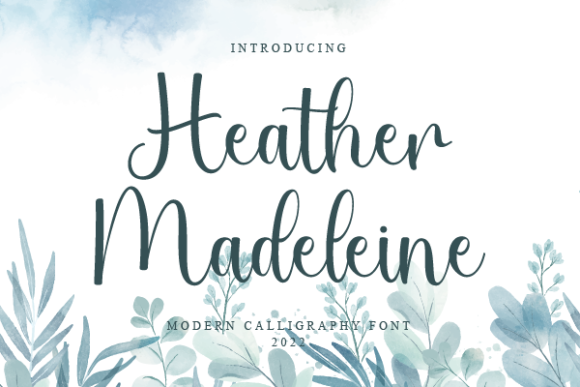
Step into a world of elegance and sophistication with Heather Madeleine, a script font that exudes charm and grace. Fiqiart, the creative mind behind this masterpiece, has meticulously crafted each letterform to deliver a stunning visual experience. Prepare to be captivated by its intricate details and delicate flourishes that elevate any design to new heights of beauty.
Imagine your T-shirt designs adorned with Heather Madeleine's enchanting characters, gracefully flowing across the fabric, enchanting the eyes of all who behold them. Let your creativity soar as you unleash the boundless possibilities of this font, transforming ordinary garments into works of art. With its remarkable versatility, Heather Madeleine effortlessly adapts to a multitude of design styles, adding a touch of elegance to logos, branding, invitations, and more.
Unleash your inner artist and let Heather Madeleine be your muse. Its timeless appeal and effortless charm will captivate your audience, leaving a lasting impression wherever your designs may grace. Immerse yourself in a world of creativity, where imagination knows no bounds and beauty reigns supreme.
Heather Madeleine, a font that ignites passion and fuels inspiration, awaits your creative embrace. Its exquisite form and captivating presence will elevate your designs to new heights, leaving an indelible mark on the hearts of your beholders. Embrace the allure of Heather Madeleine and unlock a realm of endless possibilities.